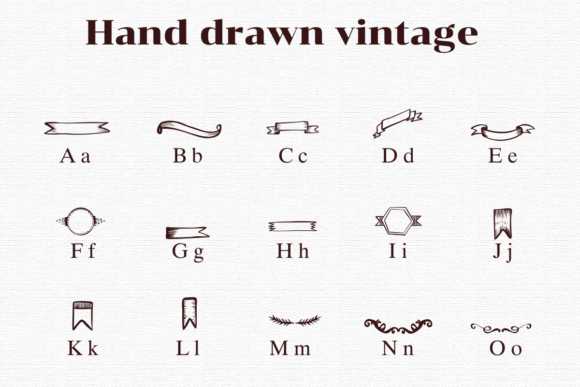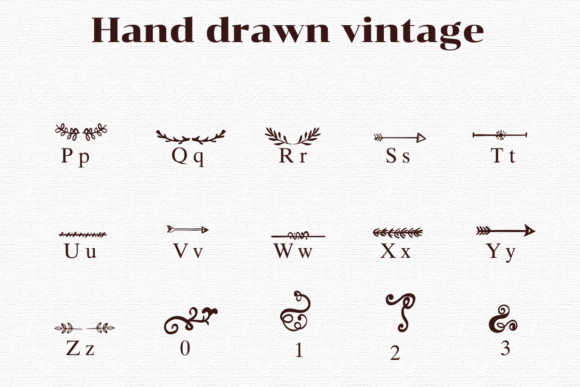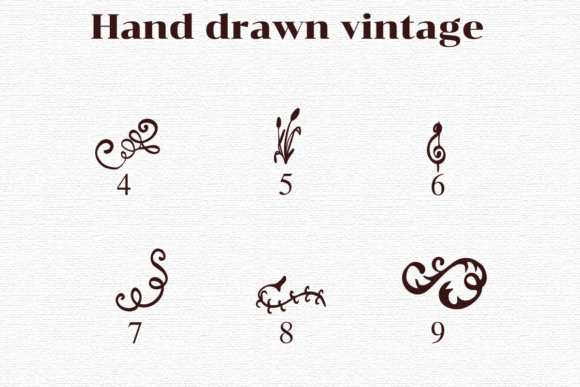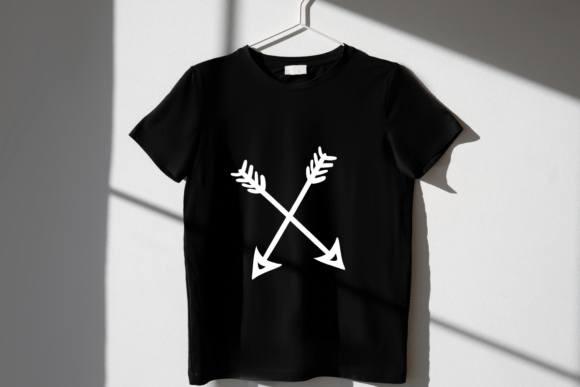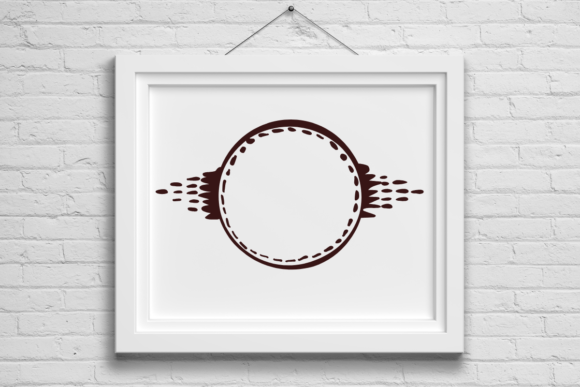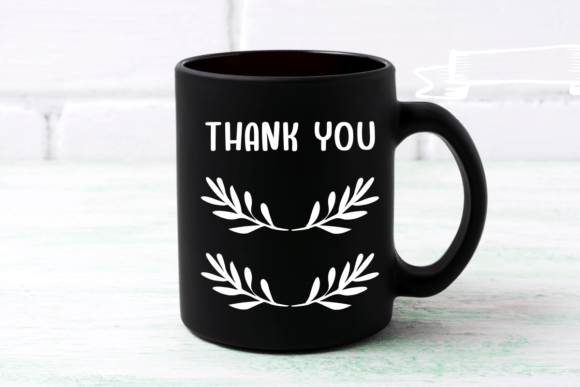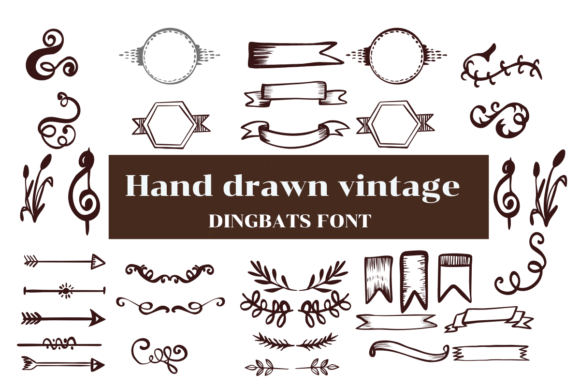
Discover the Charm of Hand Drawn Vintage Font: A Treasure Trove of Old-Fashioned Decorations
Are you a designer or crafter looking for a unique and captivating way to add a vintage touch to your projects? Look no further than the “Hand Drawn Vintage” font, a treasure chest of old-fashioned decorations that’s sure to delight. This exquisite font is packed with charming little drawings that evoke a bygone era, perfect for adding a touch of nostalgia and whimsy to your work.
What is Hand Drawn Vintage Font?
Hand Drawn Vintage is a font that’s like a treasure chest of old-fashioned decorations. It’s full of charming little drawings that look like they came from the past. You’ll find swirls, borders, and all sorts of pretty things to add a vintage touch to your projects. This font is perfect for designers and crafters who want to add a personal touch to their work, whether it’s a logo, a label, or a decorative piece.
Features of Hand Drawn Vintage Font
The Hand Drawn Vintage font is a versatile and extensive collection of illustrations that can be used to enhance a wide range of projects. Some of its key features include:
- Extensive library of illustrations: The font includes a vast array of illustrations, from simple borders and swirls to intricate designs and patterns.
- Hand-drawn charm: Each illustration is carefully hand-drawn to give it a unique, organic feel that’s perfect for adding a touch of personality to your projects.
- Vintage aesthetic: The illustrations are designed to evoke a bygone era, with a focus on classic, timeless designs that will never go out of style.
Uses for Hand Drawn Vintage Font
The Hand Drawn Vintage font is incredibly versatile and can be used in a wide range of projects, including:
- Graphic design: Use the font to add a vintage touch to your logos, brochures, and other marketing materials.
- Crafting: Add a personal touch to your craft projects, such as scrapbooking, card making, and journaling.
- Stationery: Use the font to create beautiful, one-of-a-kind stationery, including invitations, greeting cards, and letterhead.
- Web design: Add a touch of elegance and sophistication to your website with the Hand Drawn Vintage font.
Tips for Using Hand Drawn Vintage Font
The Hand Drawn Vintage font is a treasure trove of old-fashioned decorations that’s perfect for designers and crafters looking to add a vintage touch to their projects. With its extensive library of illustrations, hand-drawn charm, and vintage aesthetic, this font is sure to delight. Whether you’re working on a graphic design project, a craft project, or a web design project, the Hand Drawn Vintage font is a versatile and valuable resource that’s sure to inspire.